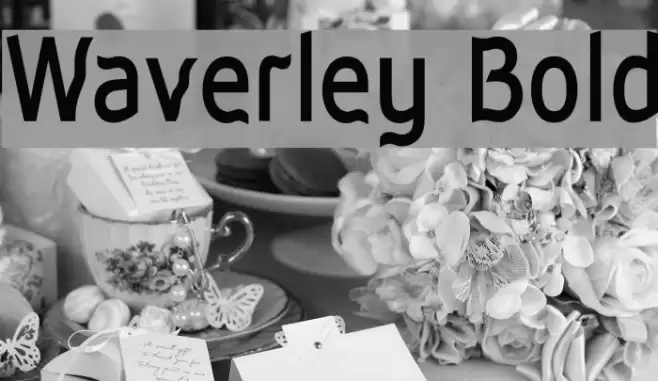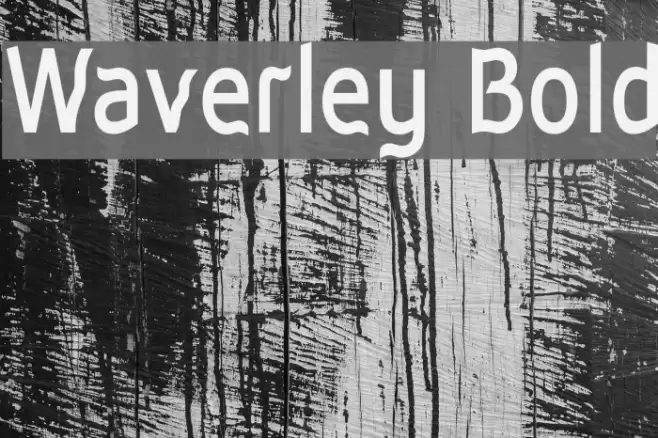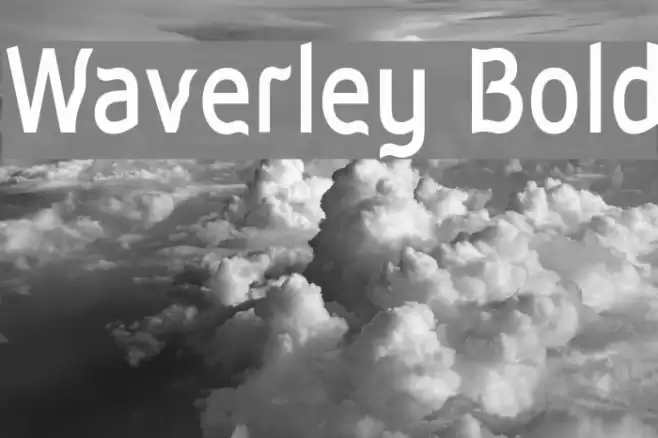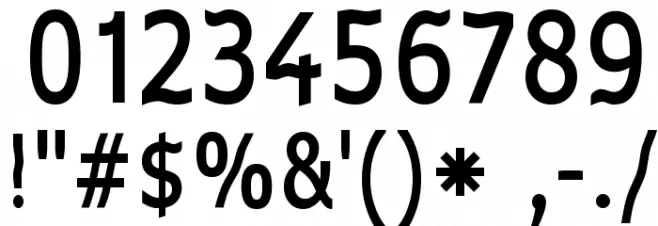
Waverley Bold Font
Waverley Bold Description
This font features a bold and robust design with a modern flair. The characters are well-defined with a slight geometric influence, giving them a clean and structured appearance. The uppercase letters are tall and commanding, while the lowercase letters maintain a consistent height, ensuring readability. The numerals are clear and distinct, making them suitable for various applications. Special characters are included, providing versatility for different contexts. The overall design is balanced, with a slight emphasis on vertical strokes, adding to its contemporary feel.
A bold, modern font with geometric influences and excellent readability from Uncategorized fonts.